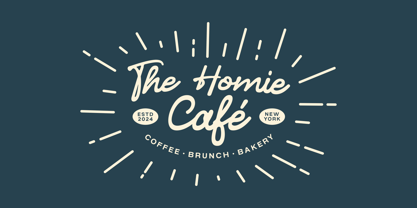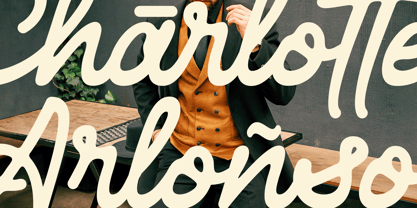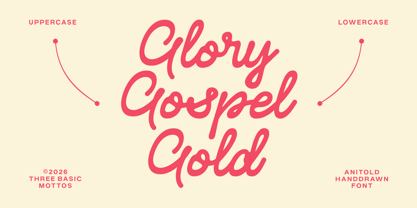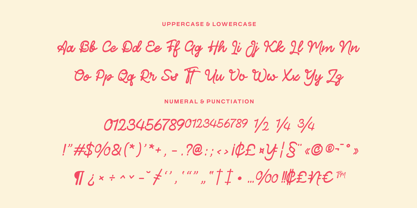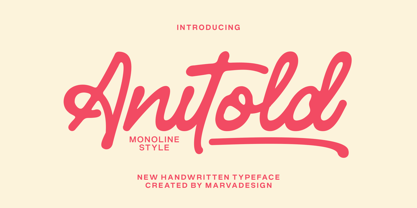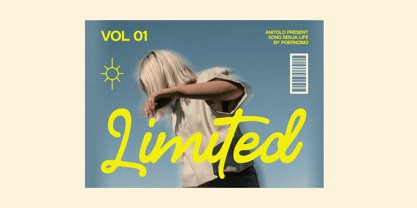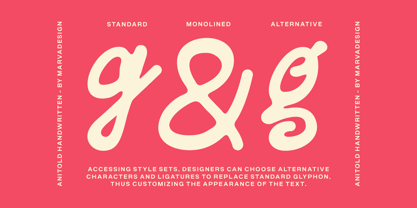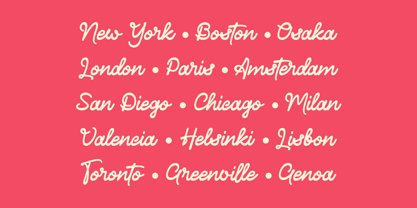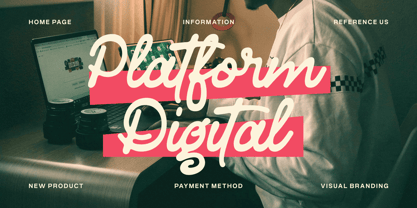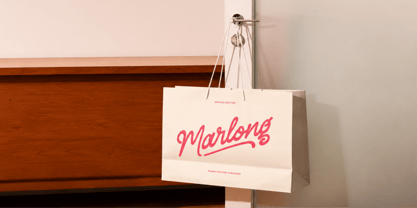
Anitold
by Marvadesign
The Anitold Font Family was designed by Febrie Setiawan and published by Marvadesign. Anitold contains 1 styles. More about this family
Anitold is a modern monoline handwritten typeface that captures the warmth of authentic signature lettering while maintaining a clean and highly polished appearance. Built with smooth, consistent strokes and naturally flowing connections, it delivers a relaxed yet confident personality that feels both handcrafted and professional. Every character has been carefully refined to create seamless letter transitions, balanced proportions, and a harmonious rhythm, resulting in a script that is expressive without sacrificing readability. The rounded terminals, fluid curves, and subtle handwritten imperfections give the typeface an inviting and friendly character, making it suitable for projects that require both personality and clarity.
Designed with versatility in mind, Anitold performs beautifully across a wide variety of creative applications. Whether used as a striking headline, elegant logo, stylish packaging, café branding, fashion campaigns, social media graphics, product labels, editorial layouts, merchandise, invitations, or modern advertising, the typeface consistently delivers a bold visual presence. Its monoline construction allows it to remain crisp and legible at both large display sizes and smaller applications, while the handcrafted rhythm adds an organic touch that distinguishes it from conventional script fonts. The complete character set, including uppercase, lowercase, numerals, punctuation, and multilingual support, provides designers with the flexibility needed for professional branding and commercial projects.
Designers: Febrie Setiawan
Foundry: Marvadesign